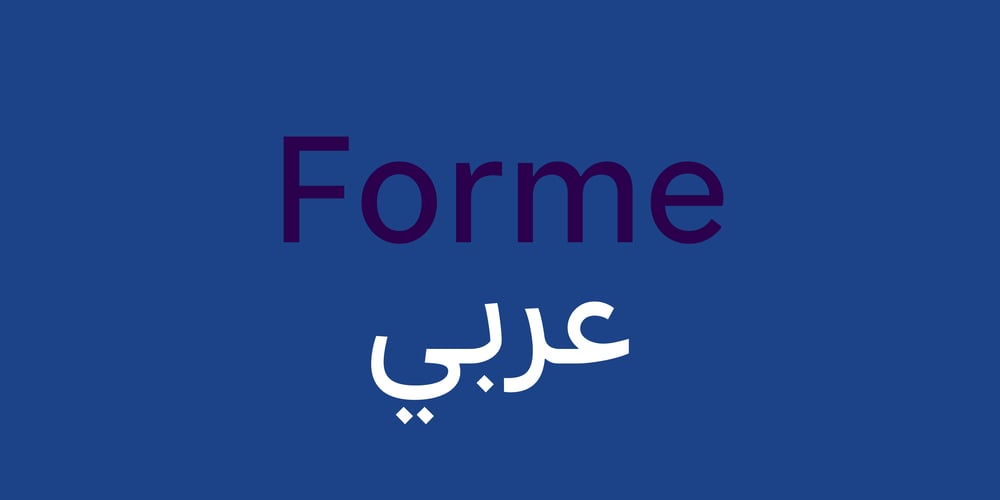
Forme Grotesque Arabic Font Family was designed by Jeremy Johnson and published by Colophon Foundry. Forme Grotesque Arabic contains 7 styles and family package options. Forme Grotesque, by Jeremy Johnson, explores the richness of the 19th century British Grotesque genre. The design draws on inspiration from a number of British type foundries, including Grotesques from Stephenson Blake, Monotype and Miller & Richard.